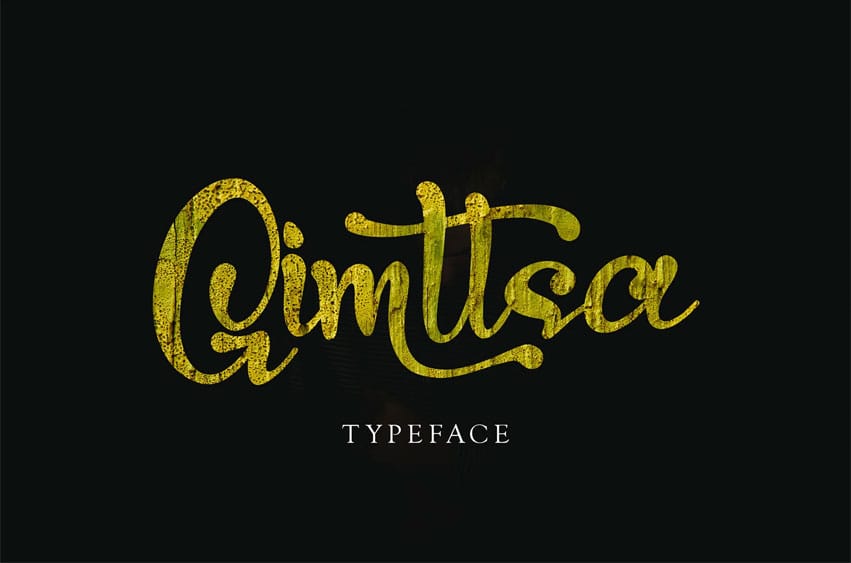
Gimstta Font with new style handwritten logotype, this font will perfect for many different project ex: quotes, logo, blog header, poster, banding, fashion, apparel, letter, invitation, stationery, etc…
Crafted with high attention to detail, it gives you the best design experience.